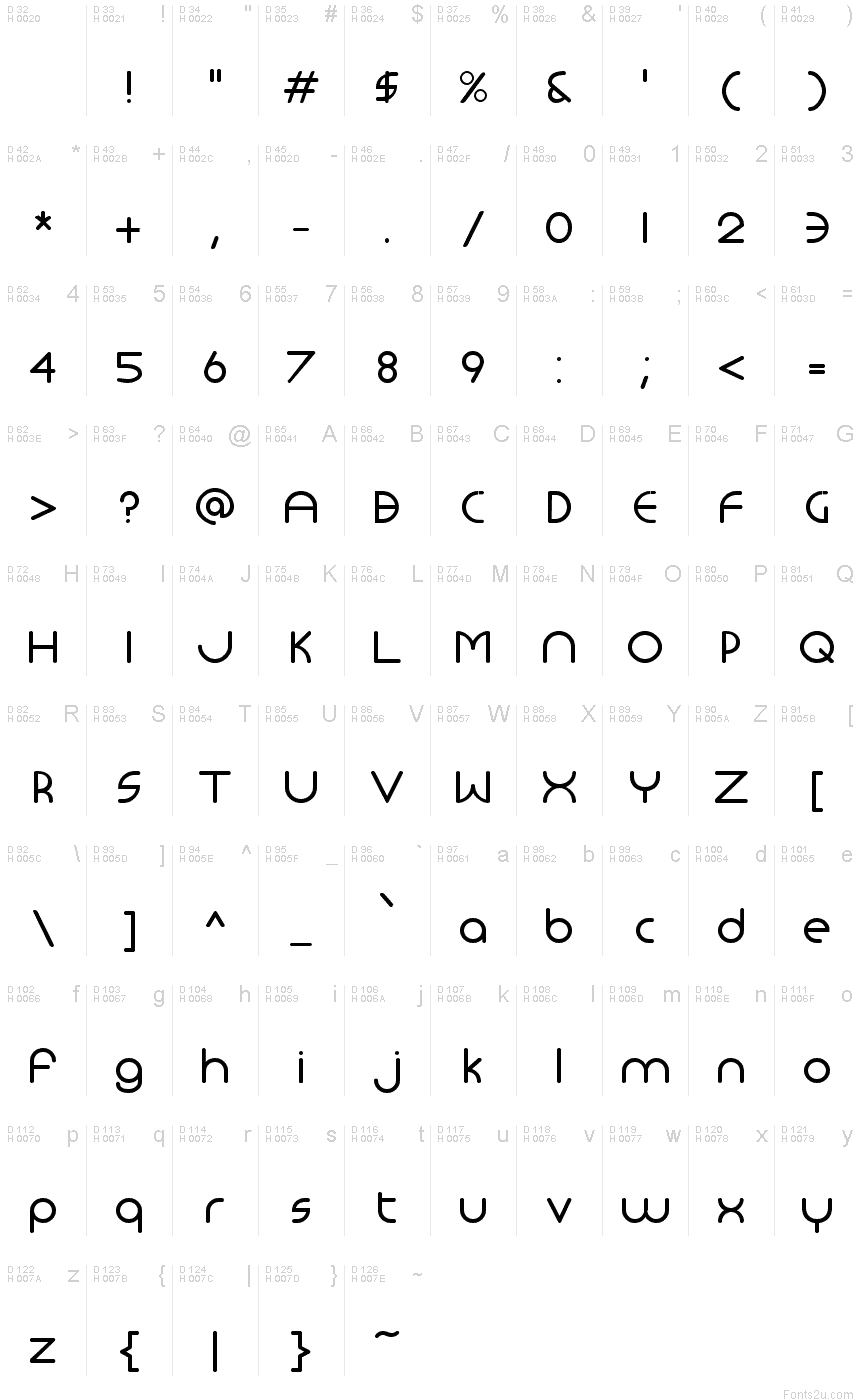
Monoglyceride
Monoglyceride font by Tepid Monkey Fonts is a free modern display typeface with a smooth, tubular rhythm that looks almost drawn with a single continuous stroke. Rounded corners, generous curves, and open counters give it a soft, synthetic sheen-somewhere between retro sci‑fi and glossy product packaging. It feels clean and futuristic without ever getting cold or mechanical.
Using Monoglyceride, headlines almost hum on tech branding, app splash screens, music posters, cosmetics labels, and playful logo wordmarks. The even, monoline structure keeps letterforms legible at mid sizes, while the circular shapes really shine in oversized titles. This free font pairs well with a simple neutral sans for body text-set Monoglyceride for the hero moments, and let the supporting type stay quiet in the background.